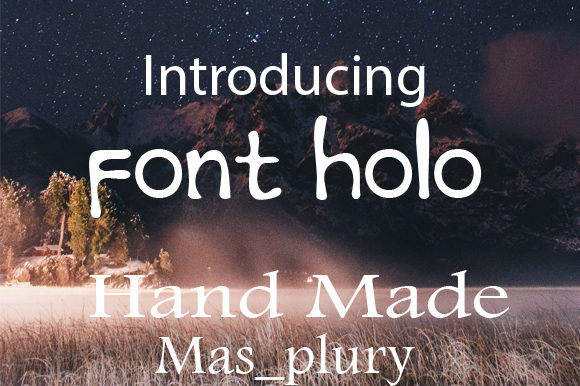
Introducing Font Holo: The Timeless Casual Font for Designers and Crafters
In the world of typography, fonts play a crucial role in conveying the tone and personality of a brand or design. With countless options available, finding the perfect font that balances style and simplicity can be a daunting task. However, if you’re looking for a casual and simple font with a timeless appeal, look no further than Font Holo.
What is Font Holo?
Font Holo is a carefully crafted font designed to bring a touch of elegance and sophistication to your designs. Its clean lines, rounded edges, and balanced proportions make it an excellent choice for a wide range of applications, from digital media to print materials.
The Timeless Appeal of Font Holo
So, what sets Font Holo apart from other fonts? The answer lies in its timeless appeal. Unlike trendy fonts that may quickly go out of style, Font Holo’s classic design ensures it remains relevant and stylish for years to come. Its simplicity and versatility make it an excellent choice for designers and crafters who want to create designs that stand the test of time.
Key Features of Font Holo
Here are some key features that make Font Holo an excellent addition to your typography arsenal:
- Clean and Simple Design: Font Holo boasts a clean and simple design that ensures your message takes center stage.
- Rounded Edges: The font’s rounded edges add a touch of warmth and friendliness, making it perfect for designs that require a more approachable tone.
- Balanced Proportions: Font Holo’s balanced proportions ensure that your text is easy to read, even at smaller font sizes.
- High Versatility: This font is suitable for a wide range of applications, from headings and titles to body text and captions.
Use Cases for Font Holo
Font Holo’s versatility makes it an excellent choice for various design projects, including:
- Branding and Logos: Use Font Holo to create a strong brand identity that exudes simplicity and elegance.
- Digital Media: Font Holo is perfect for website designs, social media graphics, and digital advertisements.
- Print Materials: This font is suitable for brochures, flyers, posters, and other print materials that require a clean and simple design.
- Crafting and DIY Projects: Font Holo is an excellent choice for crafters who want to add a personal touch to their projects, such as handmade cards, scrapbooking, and journaling.
Tips for Using Font Holo Effectively
To get the most out of Font Holo, here are some tips to keep in mind:
- Pair with Other Fonts: Experiment with pairing Font Holo with other fonts to create a unique and visually appealing design.
- Adjust Font Size and Color: Play with font sizes and colors to add depth and hierarchy to your design.
- Use for Headings and Body Text: Font Holo is suitable for both headings and body text, making it an excellent choice for designs that require a consistent typography style.
Font Holo is a casual and simple font with a timeless appeal that makes it an excellent addition to any designer’s or crafter’s typography arsenal. Its clean lines, rounded edges, and balanced proportions ensure that your designs look elegant, sophisticated, and stylish. Whether you’re working on a branding project, digital media, print materials, or crafting and DIY projects, Font Holo is an excellent choice that will help you achieve your design goals.